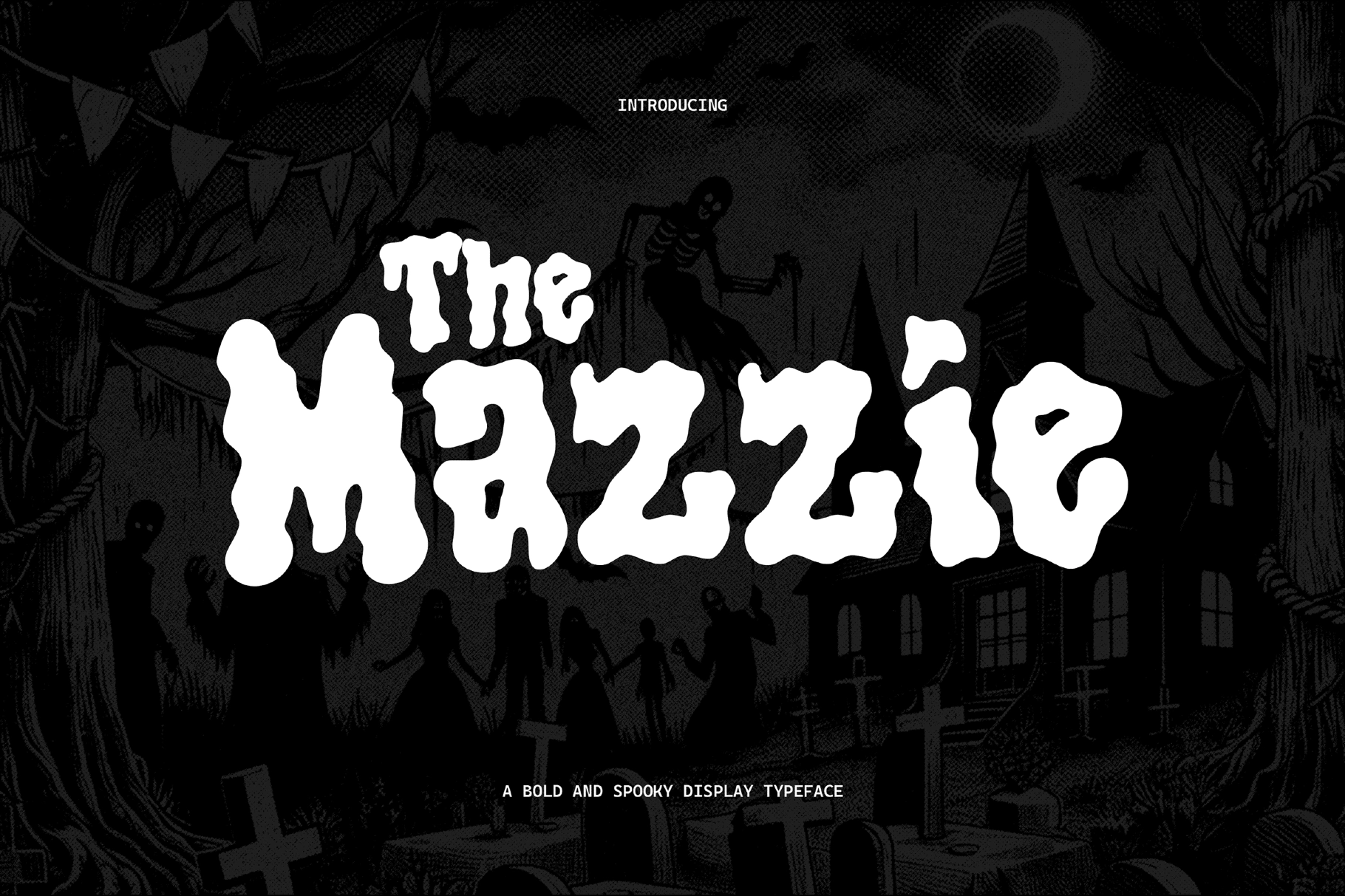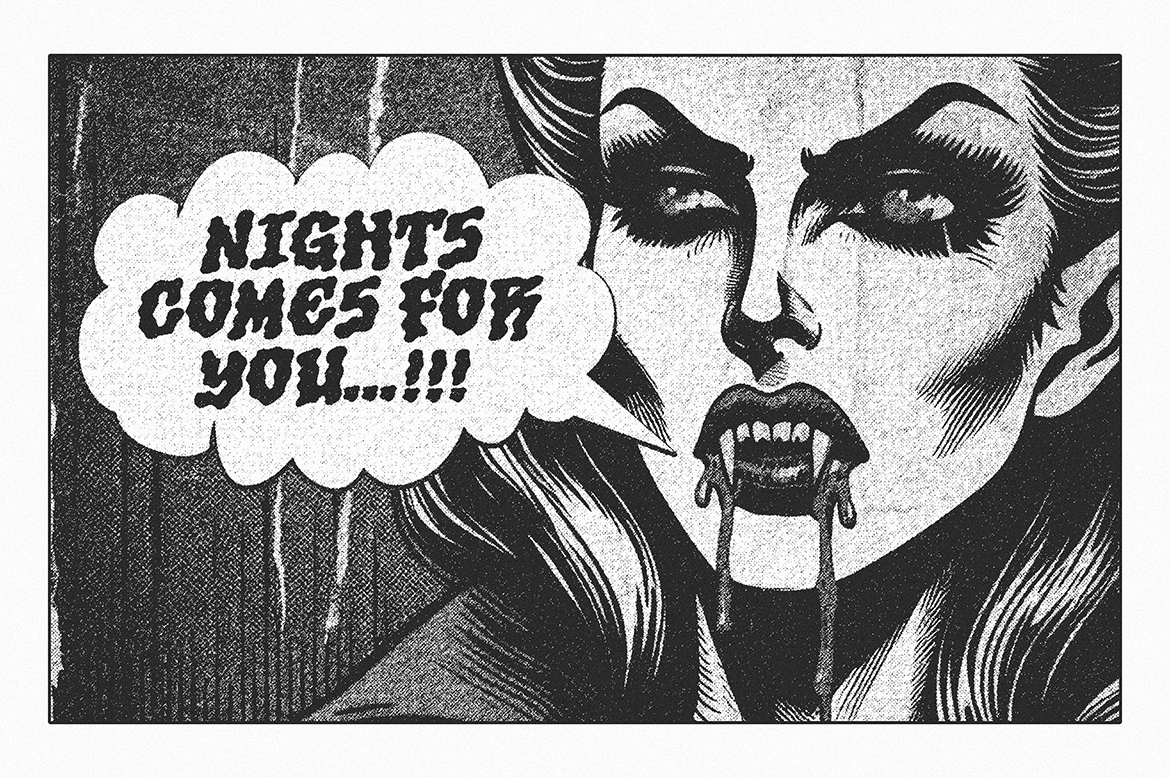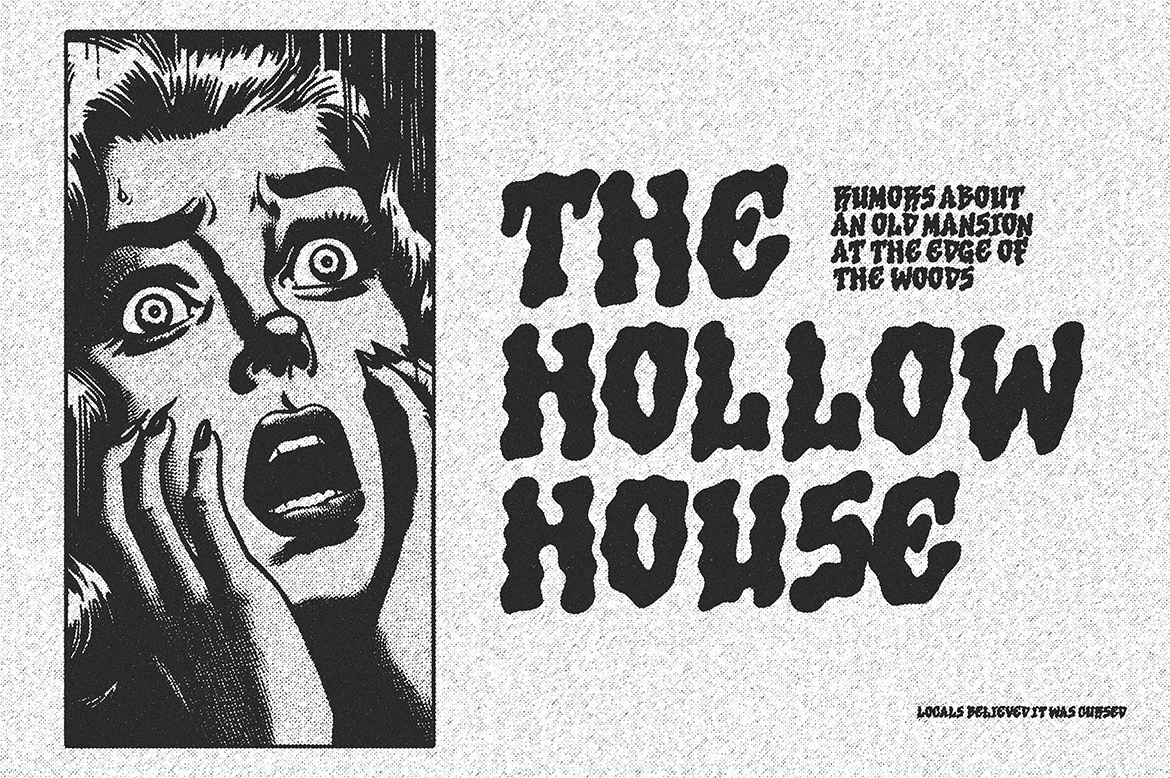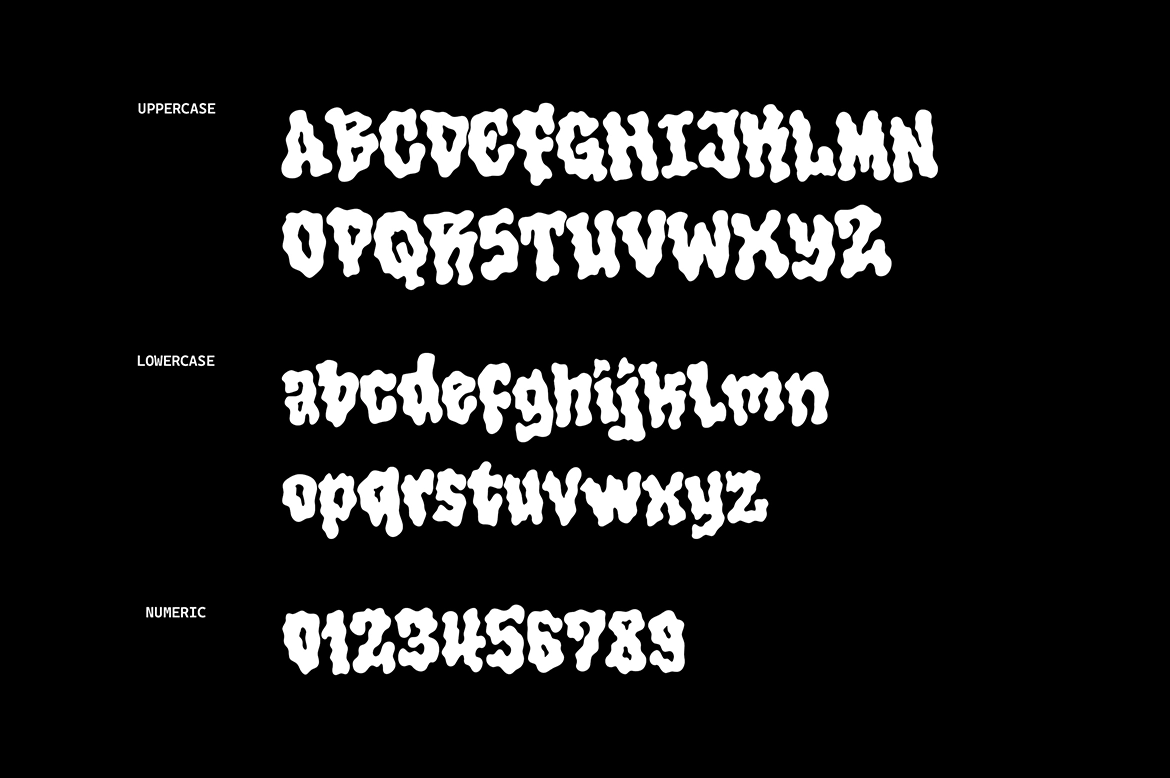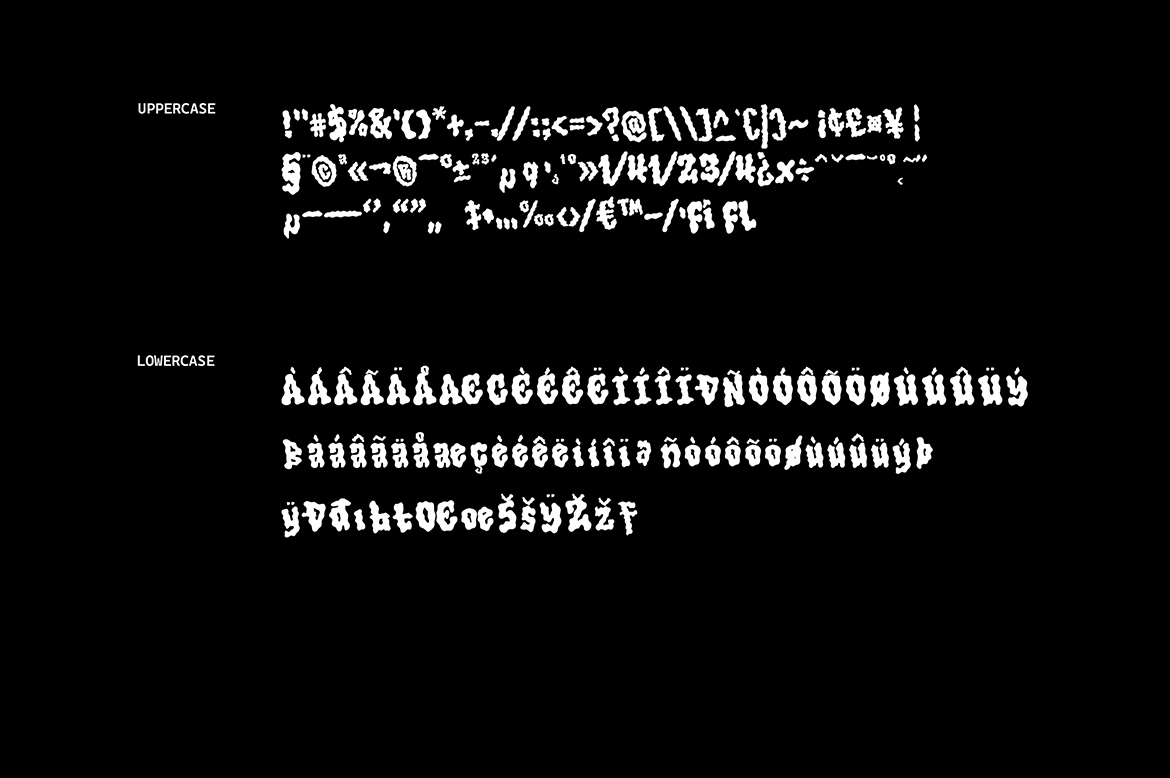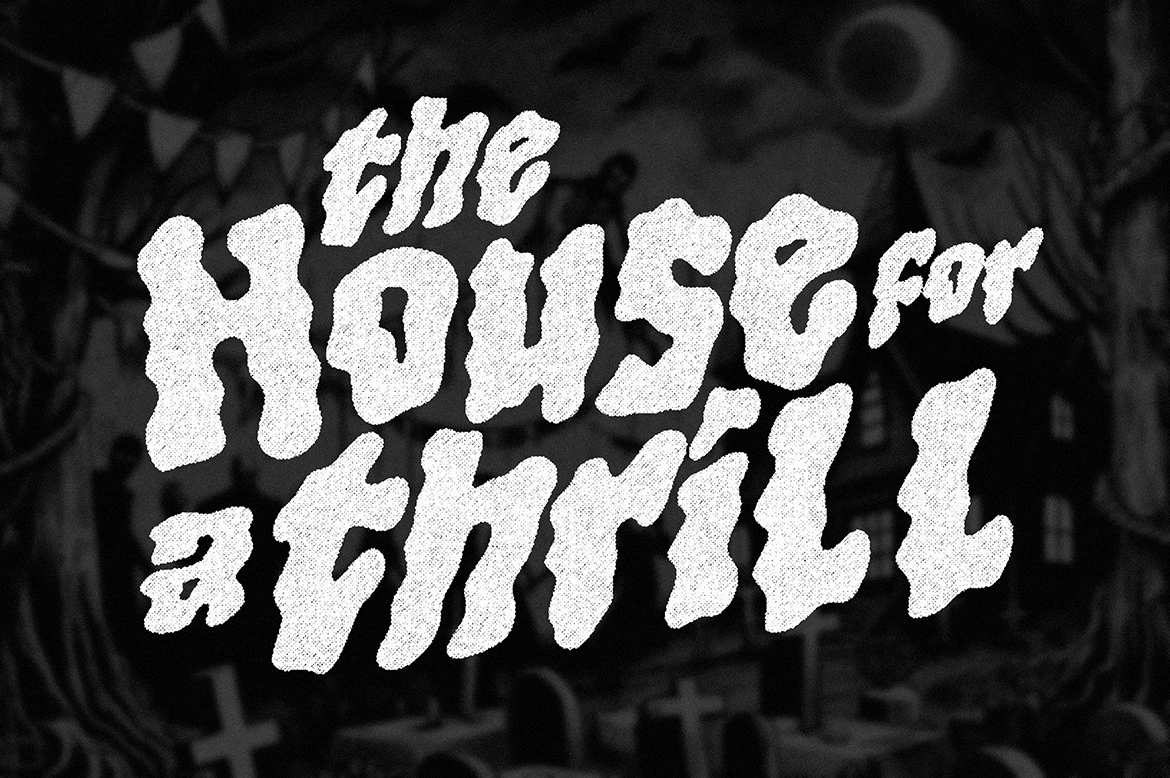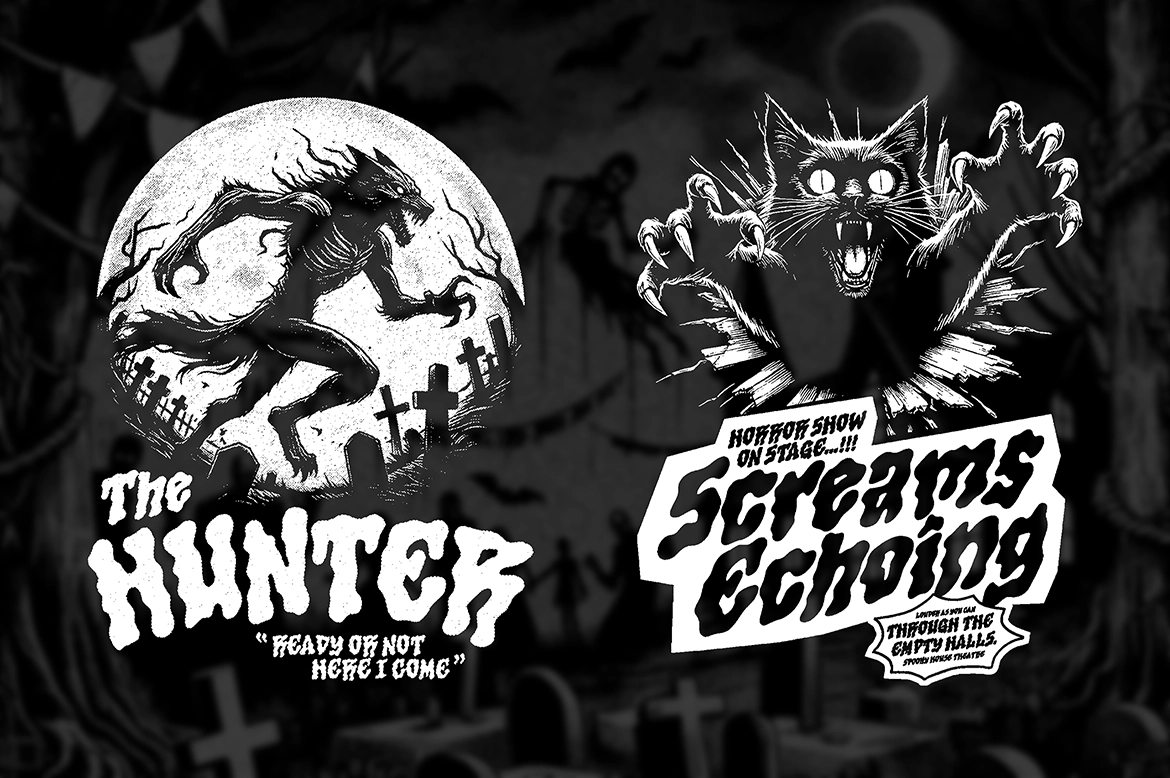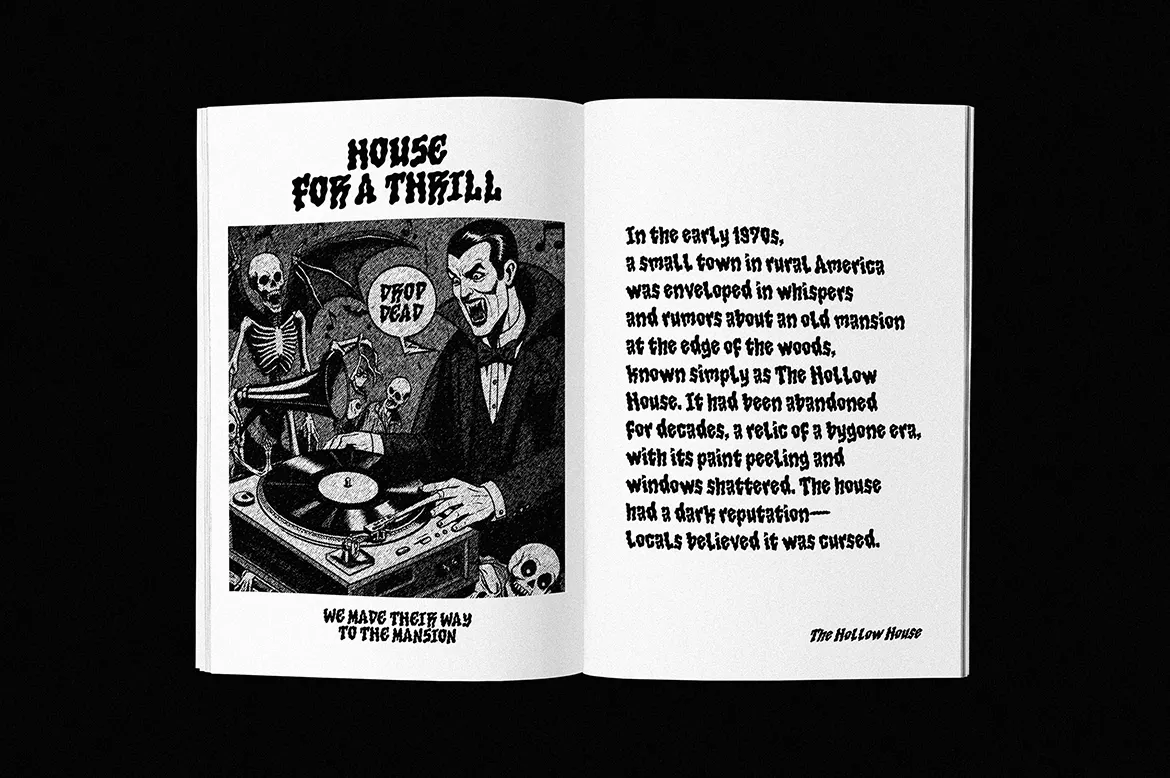
Mazzie - Spooky Halloween Display Font
Mazzie - Spooky Halloween Display Font crafted to bring spooky fun into your designs. Featuring melting, blob-like letterforms with soft psychedelic curves, it blends horror vibes with playful retro energy. The organic and irregular shapes create a dripping effect that instantly sets a mysterious and eerie mood.
Perfect for Halloween posters, party invitations, horror movie titles, themed packaging, social media graphics, and seasonal branding, Mazzie delivers eye-catching headlines with strong personality. Its dramatic yet readable style makes it ideal for projects that need to stand out while keeping a fun, creepy twist.
- Spooky Halloween display style
- Uppercase & lowercase
- Numerics
- Punctuation
- Organic, melting letterforms